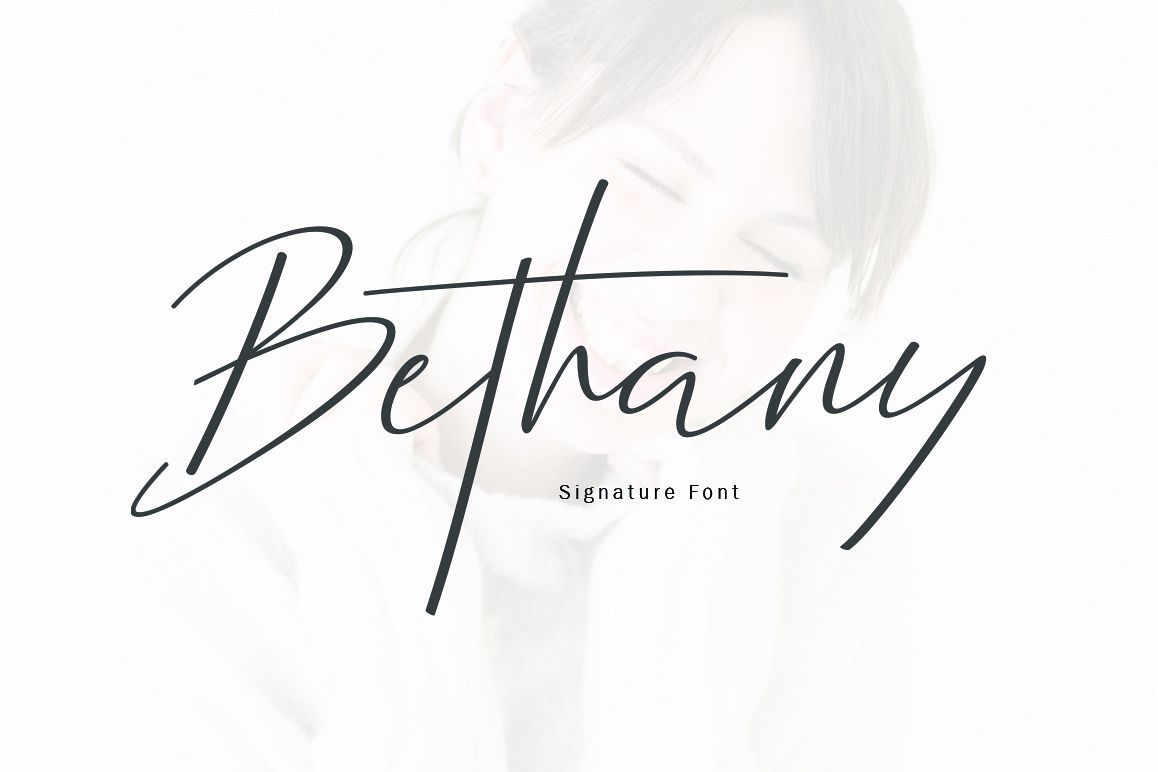
Bethany Script
Bethany Script is a modern calligraphy font with
the current handwriting style, this font is perfect for branding,
wedding invites, magazines, mugs, business cards, quotes, posters, and
Bethany  Script is equipped with 315 glyphs. and
by having many of these glyphs there will be able to choose the letters
according to your likes, lots of variations and options for each letter,
so you can customize on your design choices.